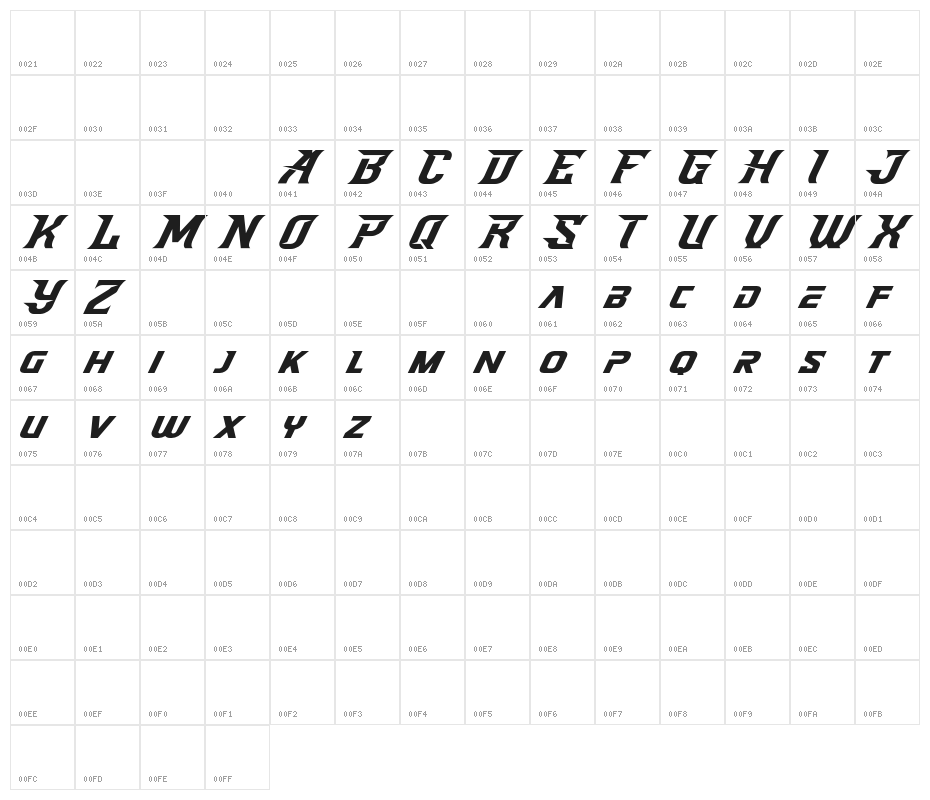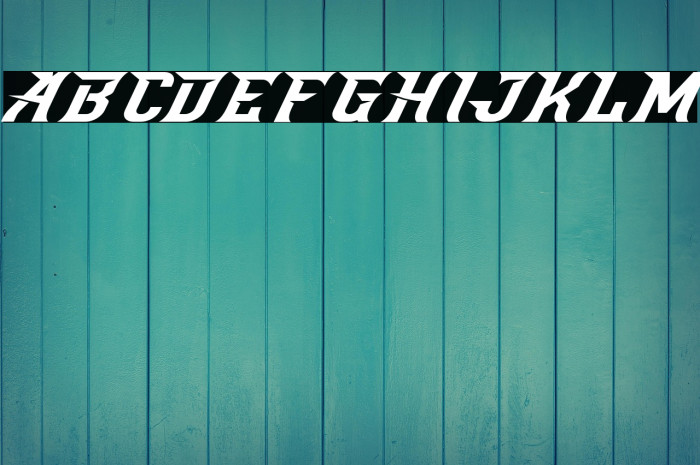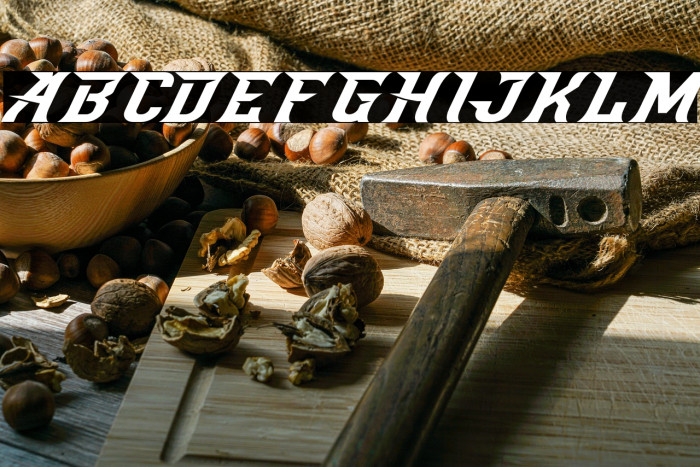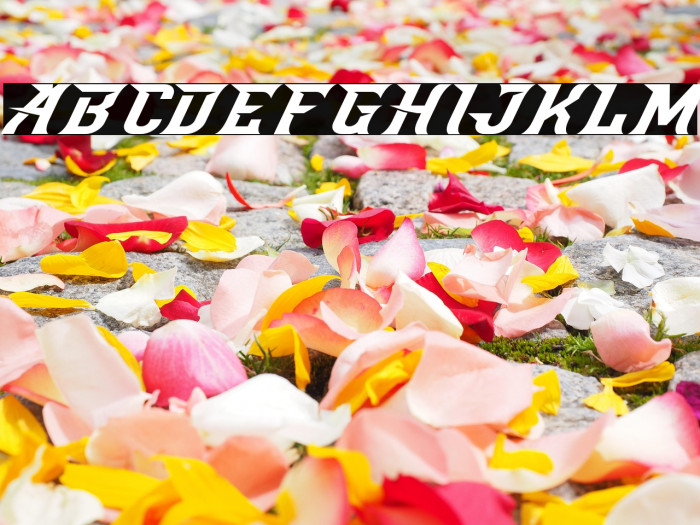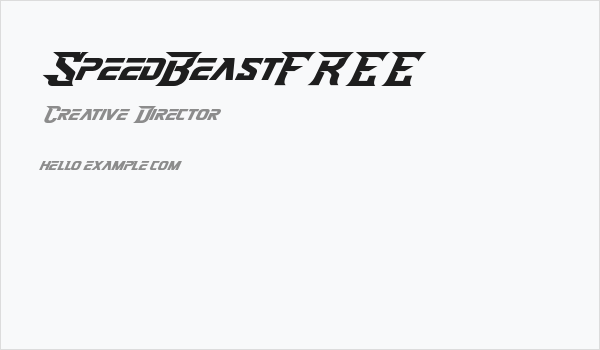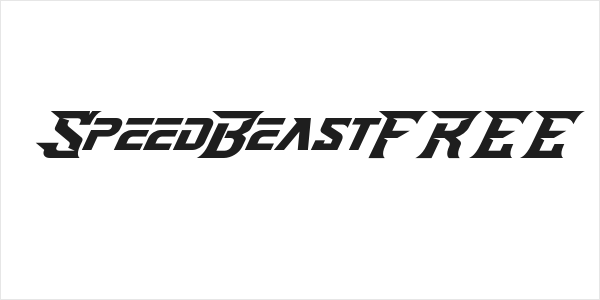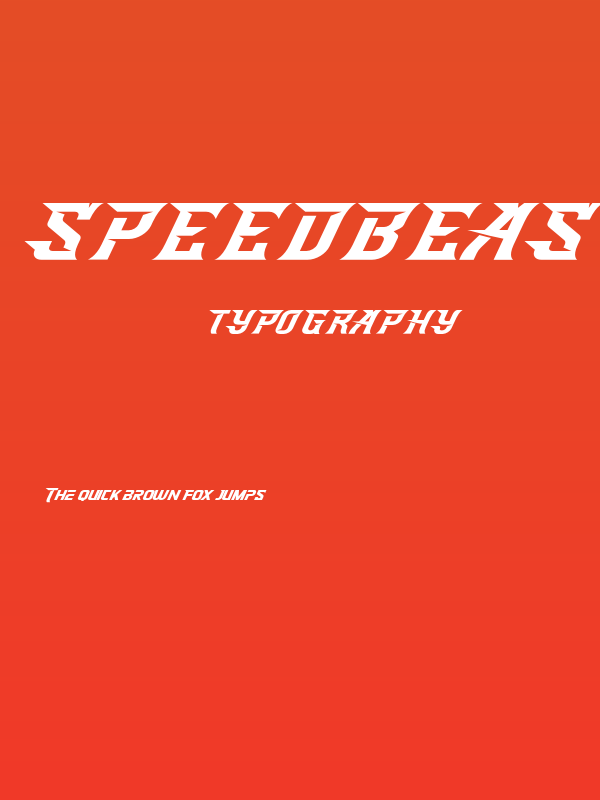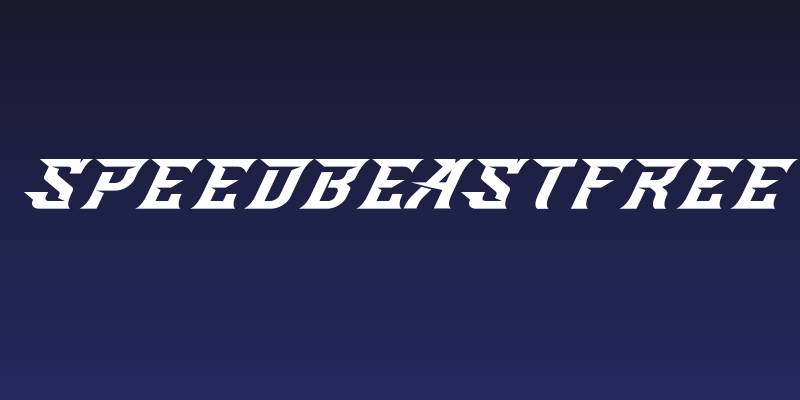
SpeedBeastFREE Font
SpeedBeastFREE Description
This font features a dynamic and angular design, characterized by sharp edges and a sense of motion. The uppercase letters are bold and impactful, with a futuristic and sporty aesthetic. The strokes are thick and consistent, providing a strong visual presence. The font is designed to convey speed and energy, making it ideal for projects that require a modern and aggressive look. The characters are slightly slanted, enhancing the sense of movement and urgency. This font is perfect for use in automotive branding, sports team logos, and dynamic advertising campaigns.
| Use Case | Logos, Headlines |
| Proposed Projects | Ideal for automotive branding, sports team logos, and dynamic advertising campaigns. |